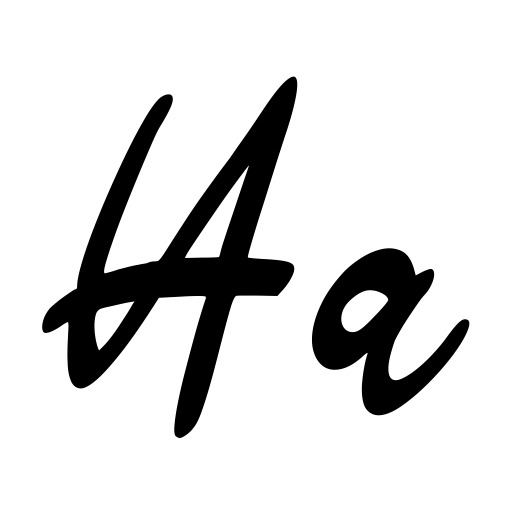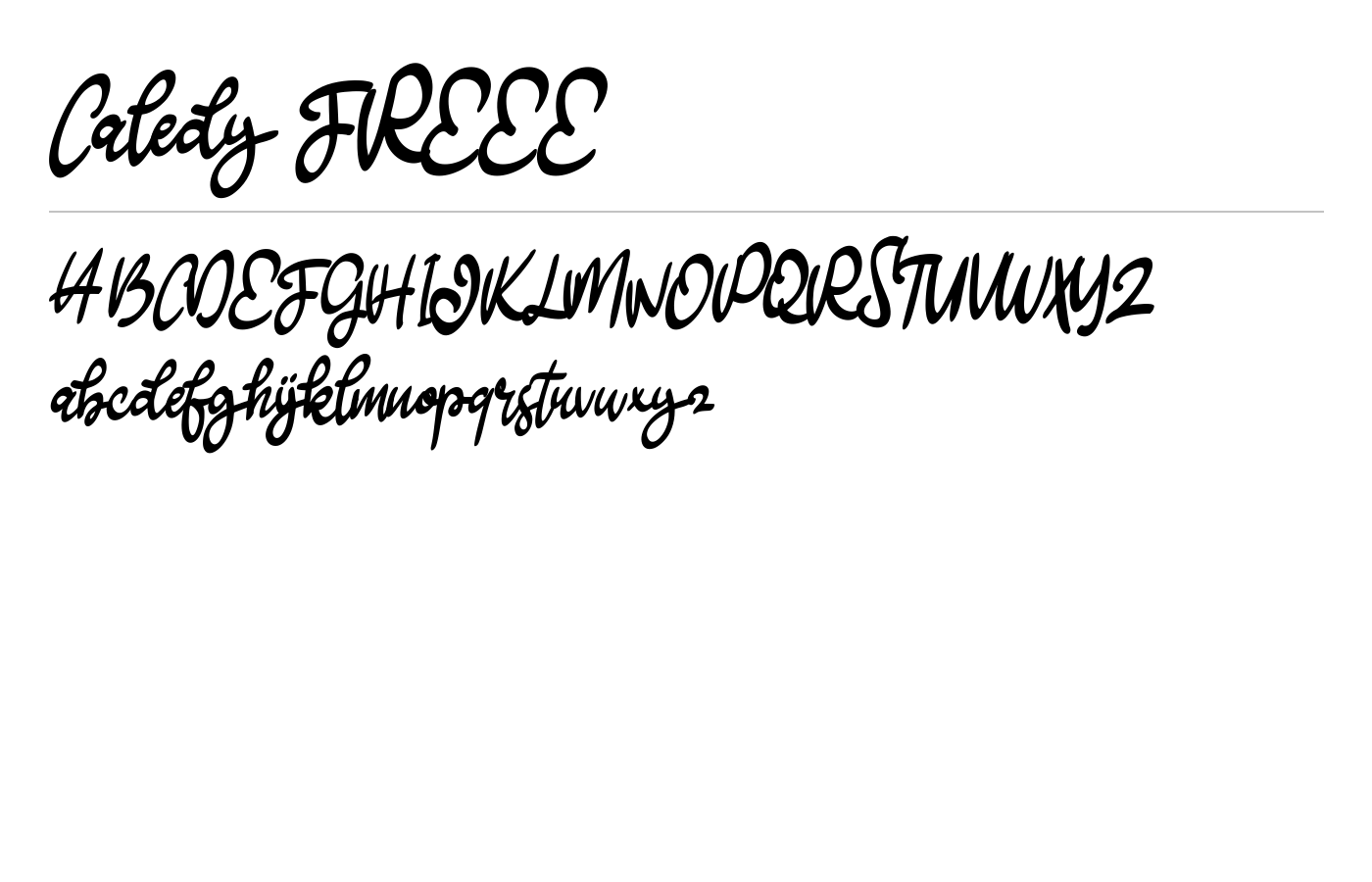
Caledy FREEE is a lively and expressive script font with a casual, handwritten feel. Its smooth, flowing strokes and moderate contrast give it a friendly yet dynamic personality, making it ideal for creative projects, branding, invitations, and headlines that seek a personal touch. This font works well when you want to convey warmth and spontaneity while maintaining readability.
Caledy FREEE Font
About Caledy FREEE Font